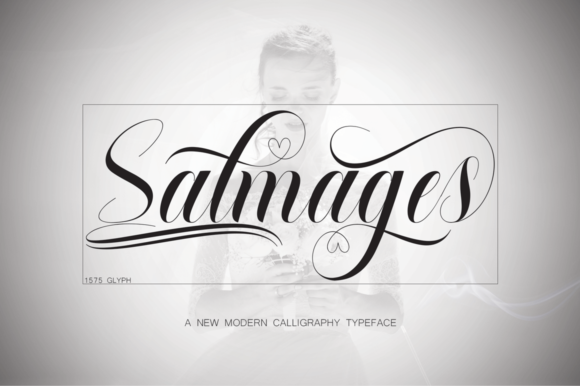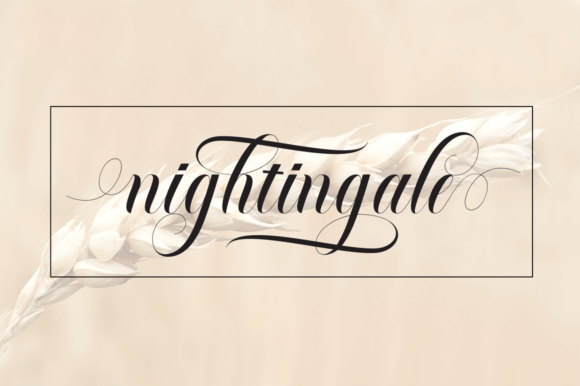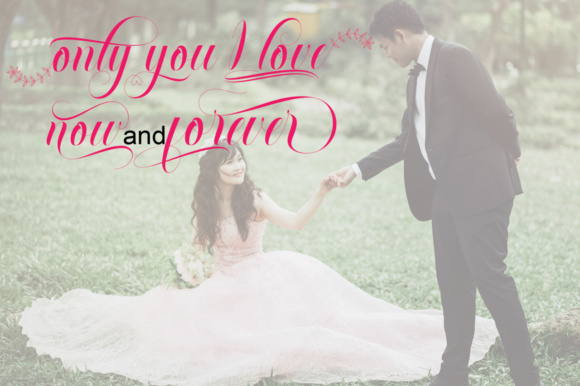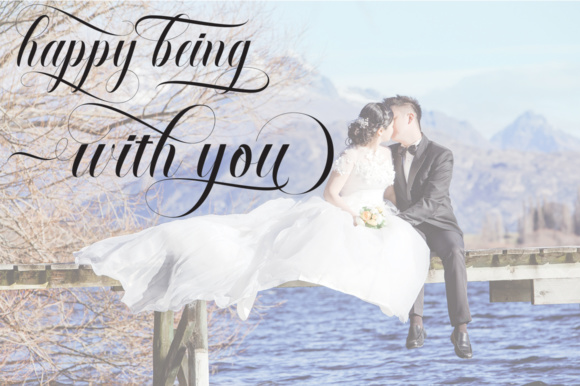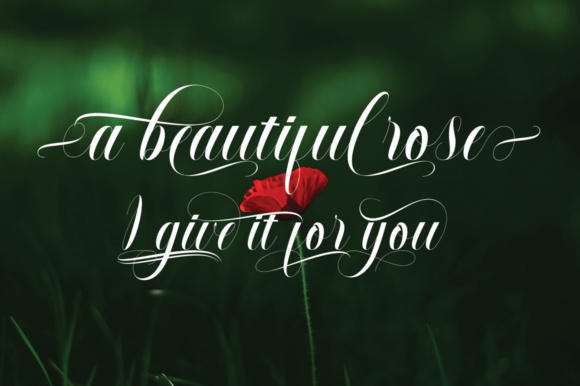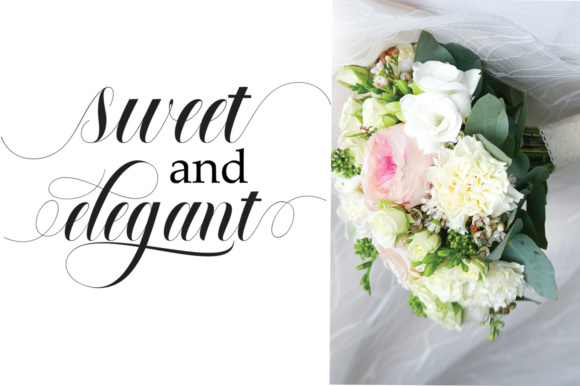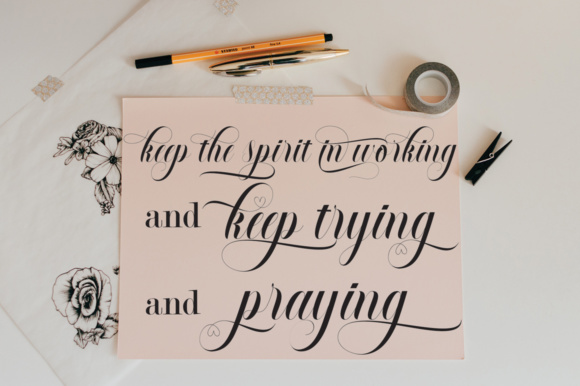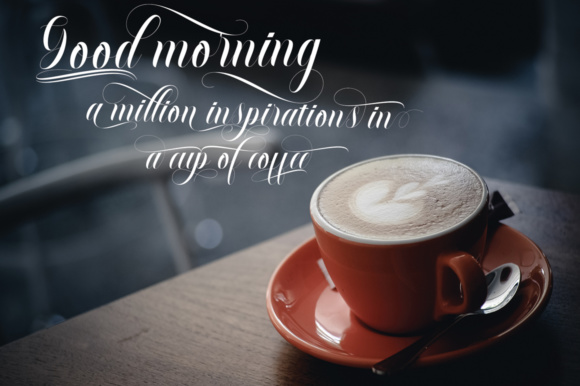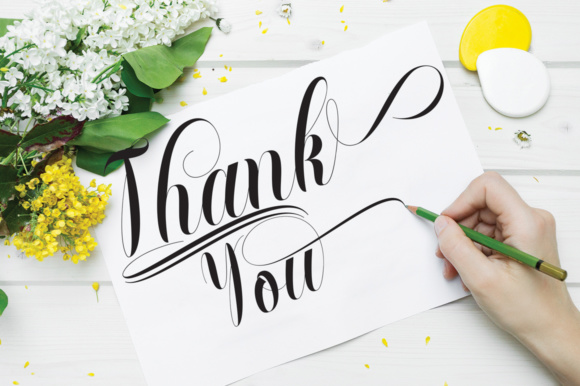
Salmages Font
About Salmages Font
Salmages is a beautiful and swashy font, perfect for use in a wide set of romantic and girly projects. This set includes swashes that have little heart embellishments, so you can create extra special messages for use in any type of creative work.